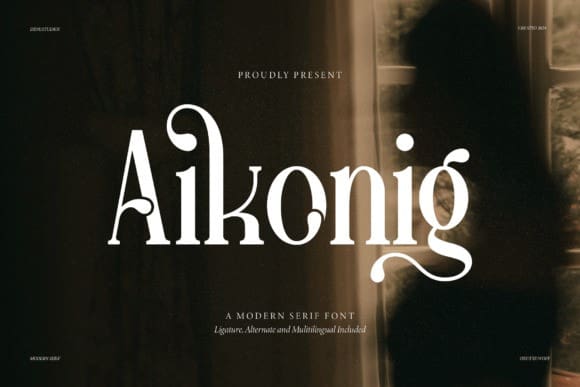
Aikonig Font
Aikonig Font is a modern serif font with clean, stylish letters. It combines classic serif details with a contemporary feel, making it perfect for elegant and professional designs. Its balanced shapes and sharp lines give it a sophisticated yet approachable look.